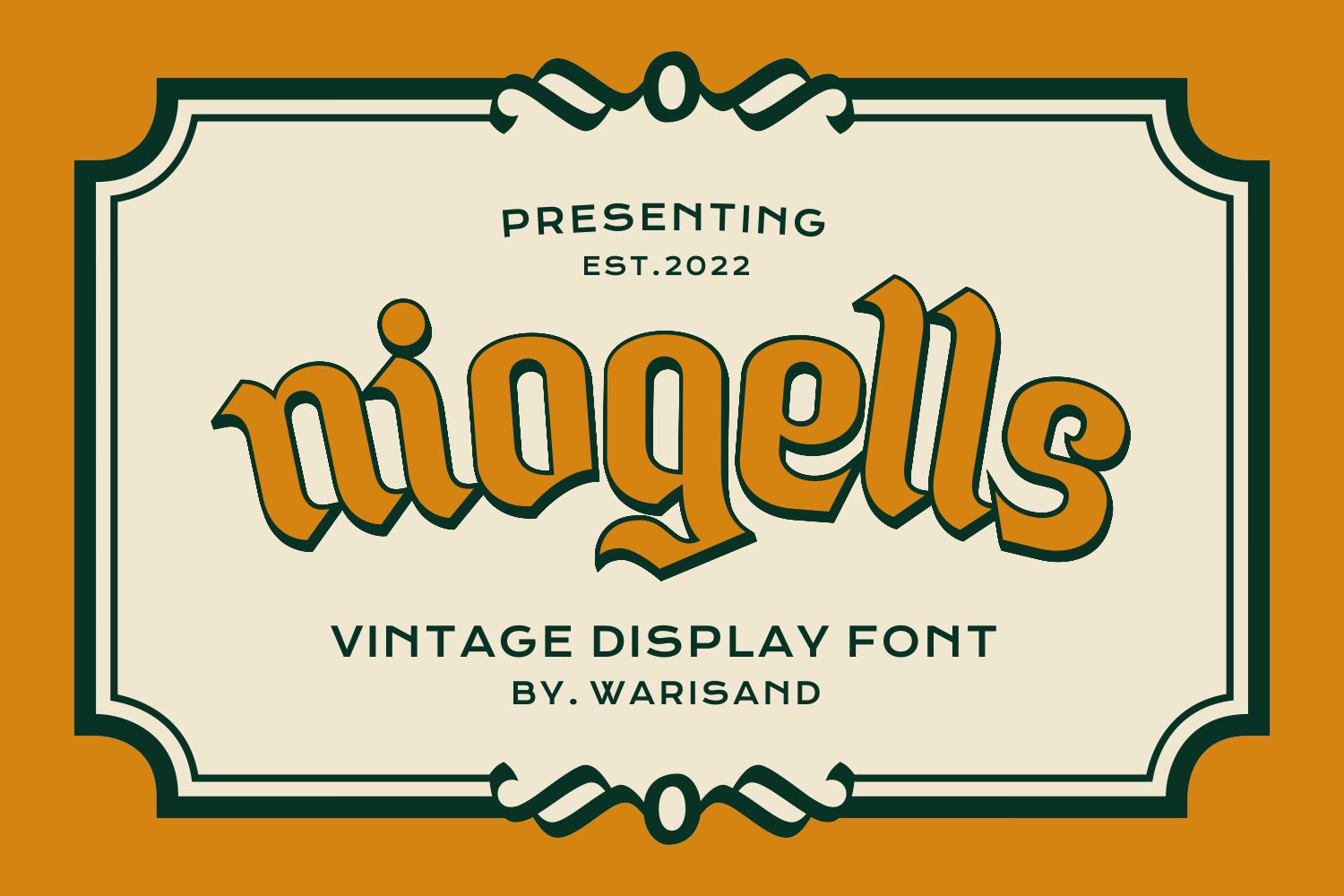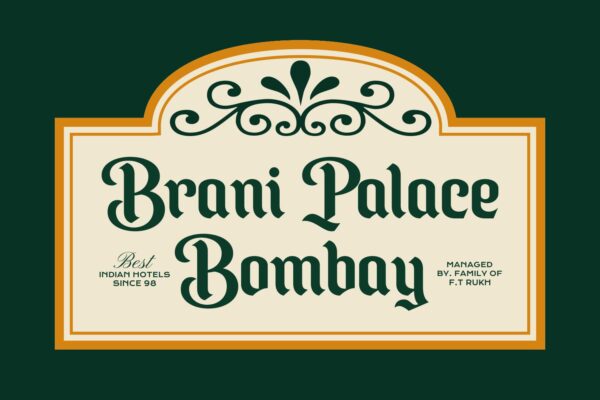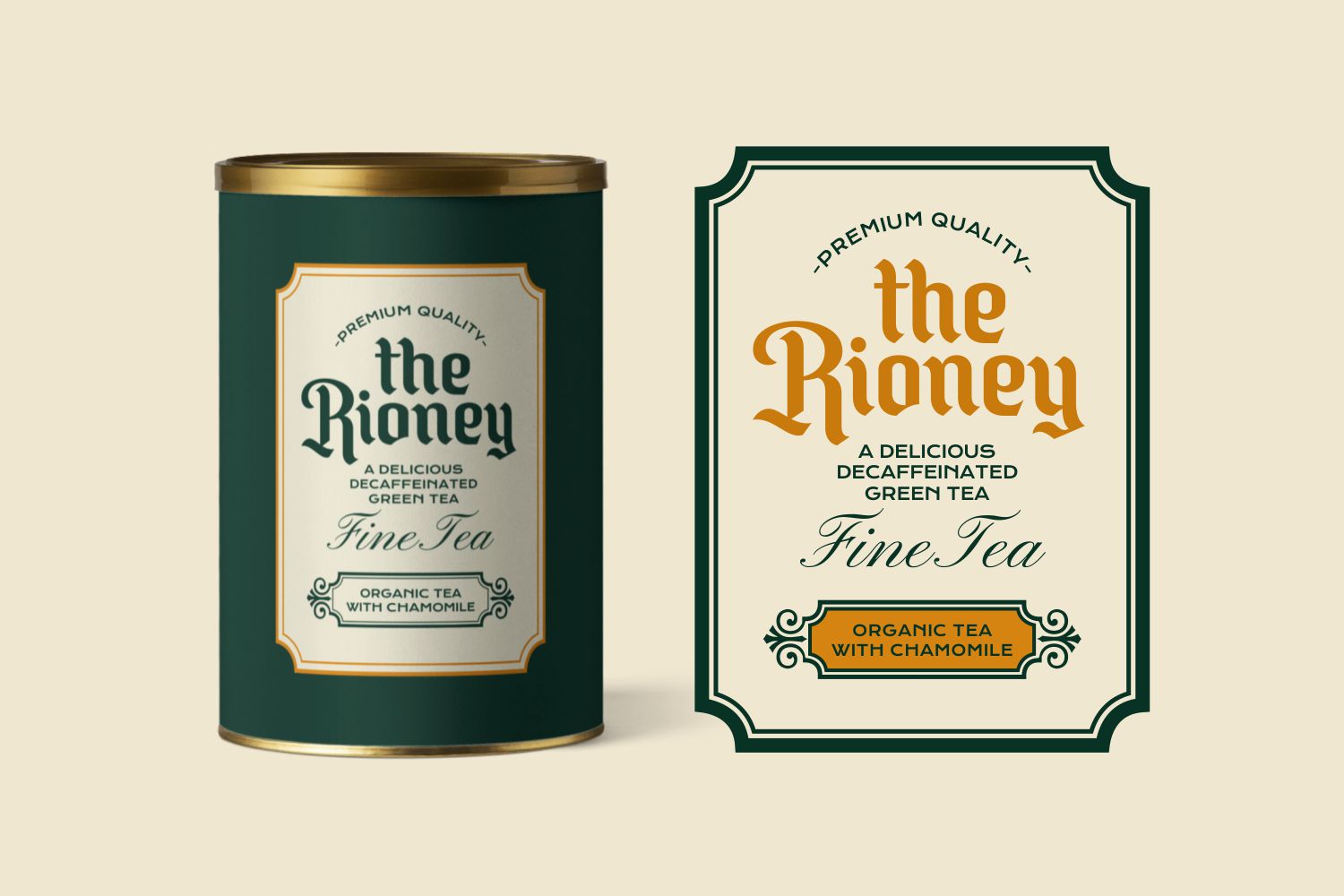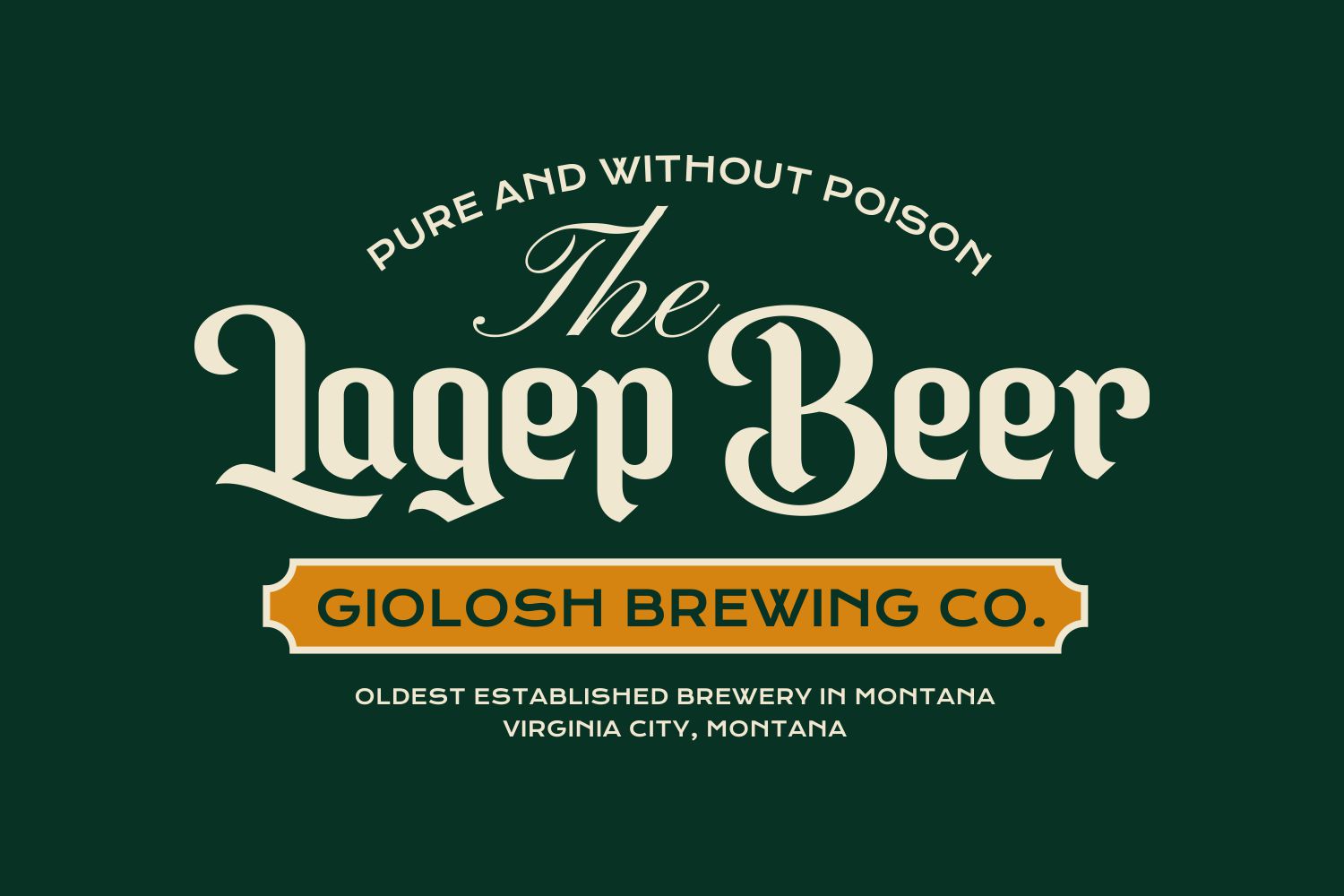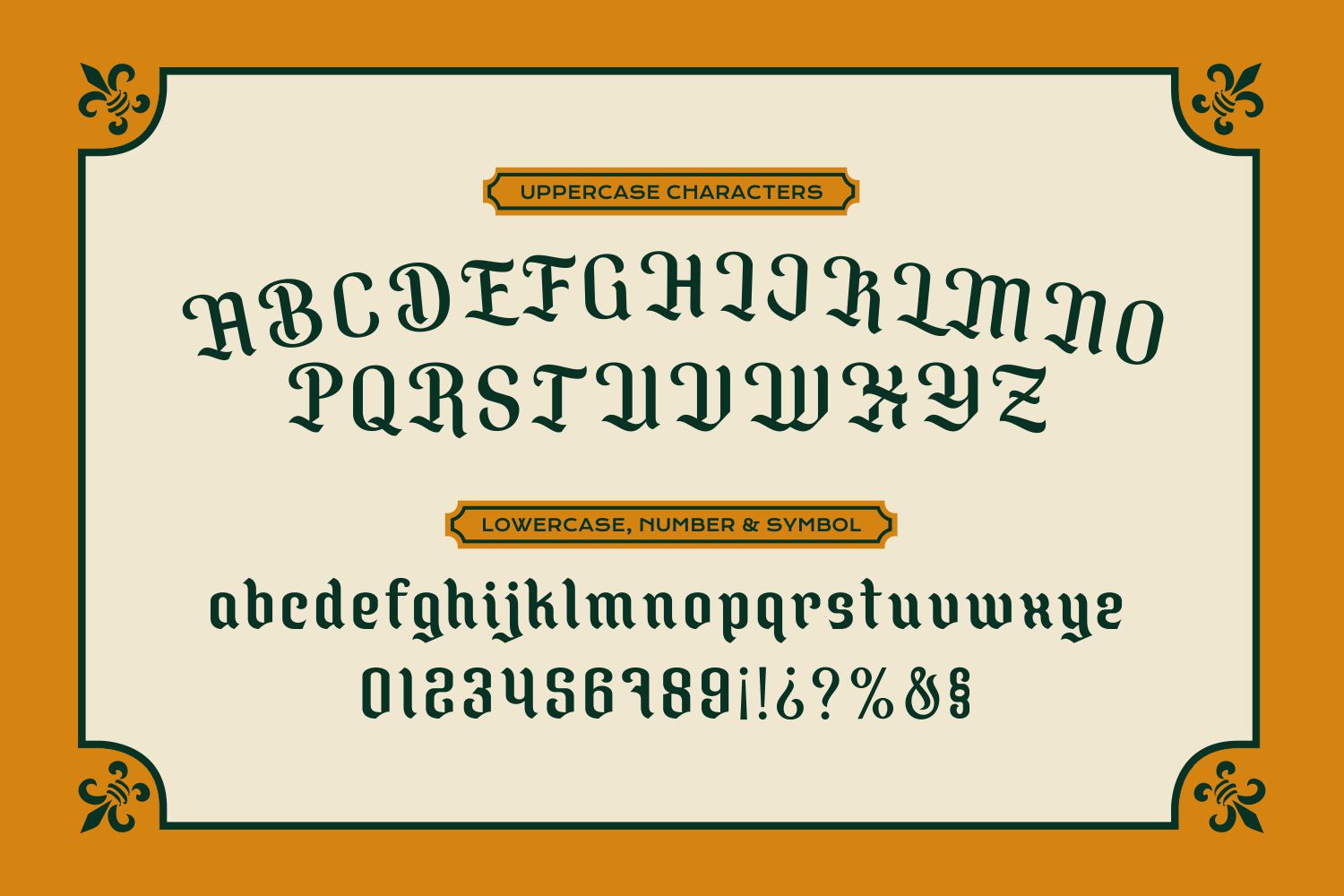
Niogells is a vintage display font with a bold personality and a warm retro charm. Its thick strokes, smooth curves, and unique lowercase style make it perfect for branding, packaging, signage, and label designs that need a nostalgic touch. The font combines gothic nuances with playful readability, resulting in a look that feels both traditional and stylishly modern.
Designed with a handcrafted aesthetic, Niogells excels in tea labels, brewery branding, hotel logos, and heritage-inspired products. It includes a full character set with uppercase, lowercase, numerals, punctuation, and multilingual support. Giving designers the creative flexibility to build strong vintage identities with a soft, approachable edge.